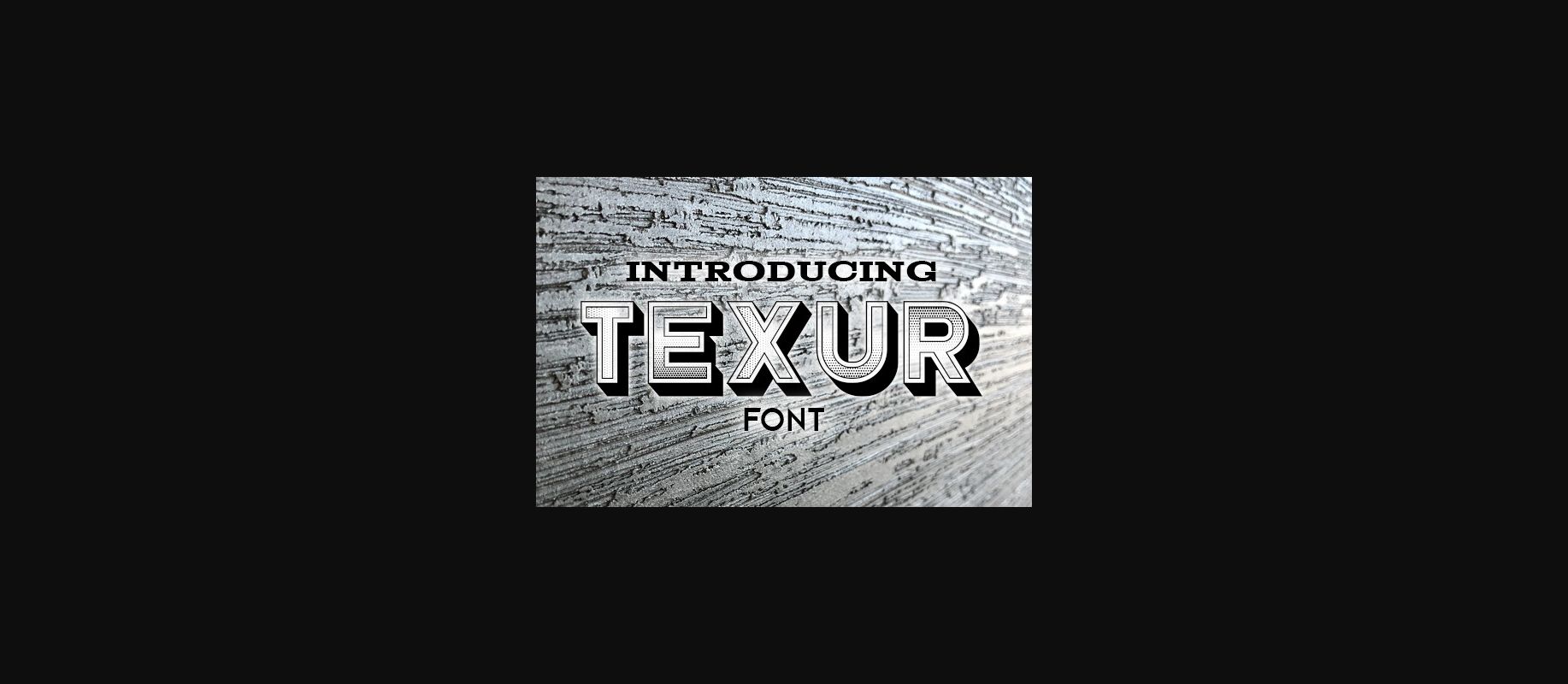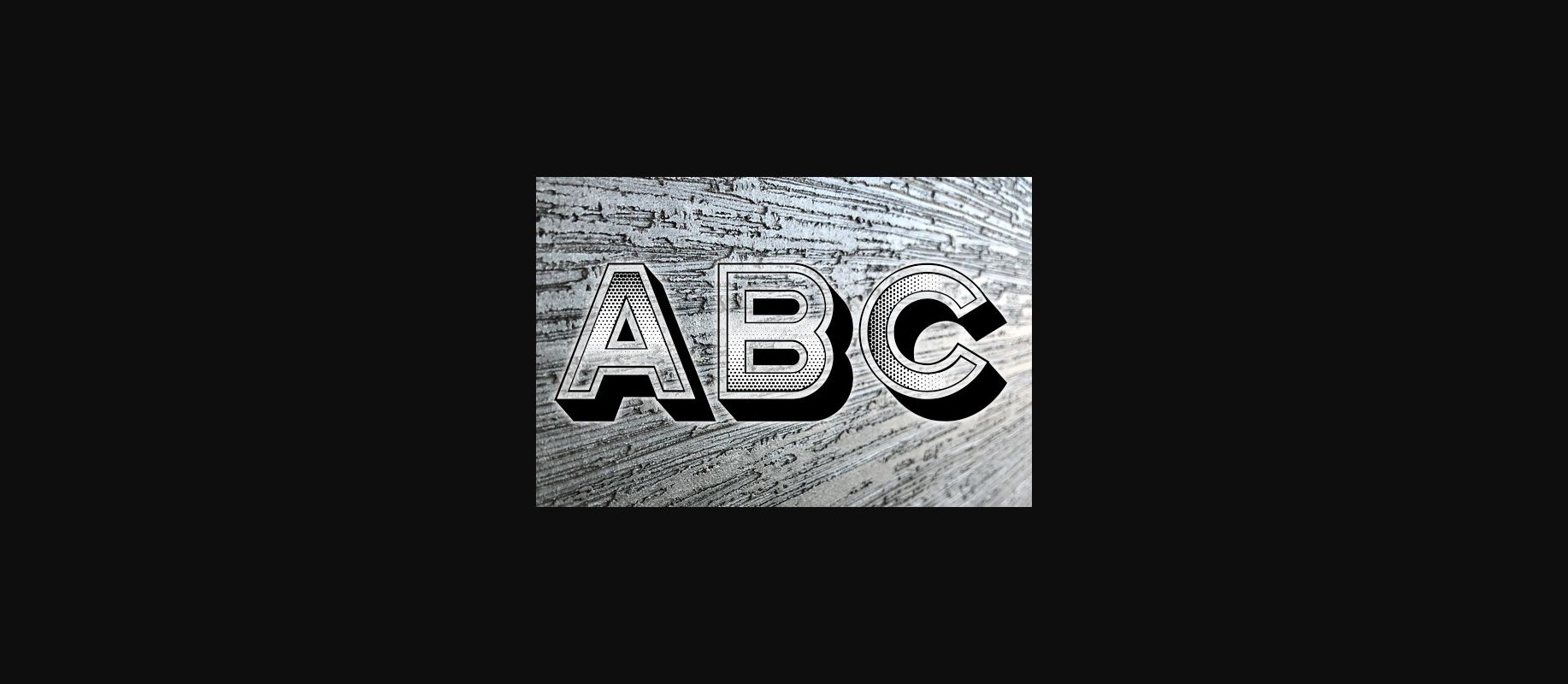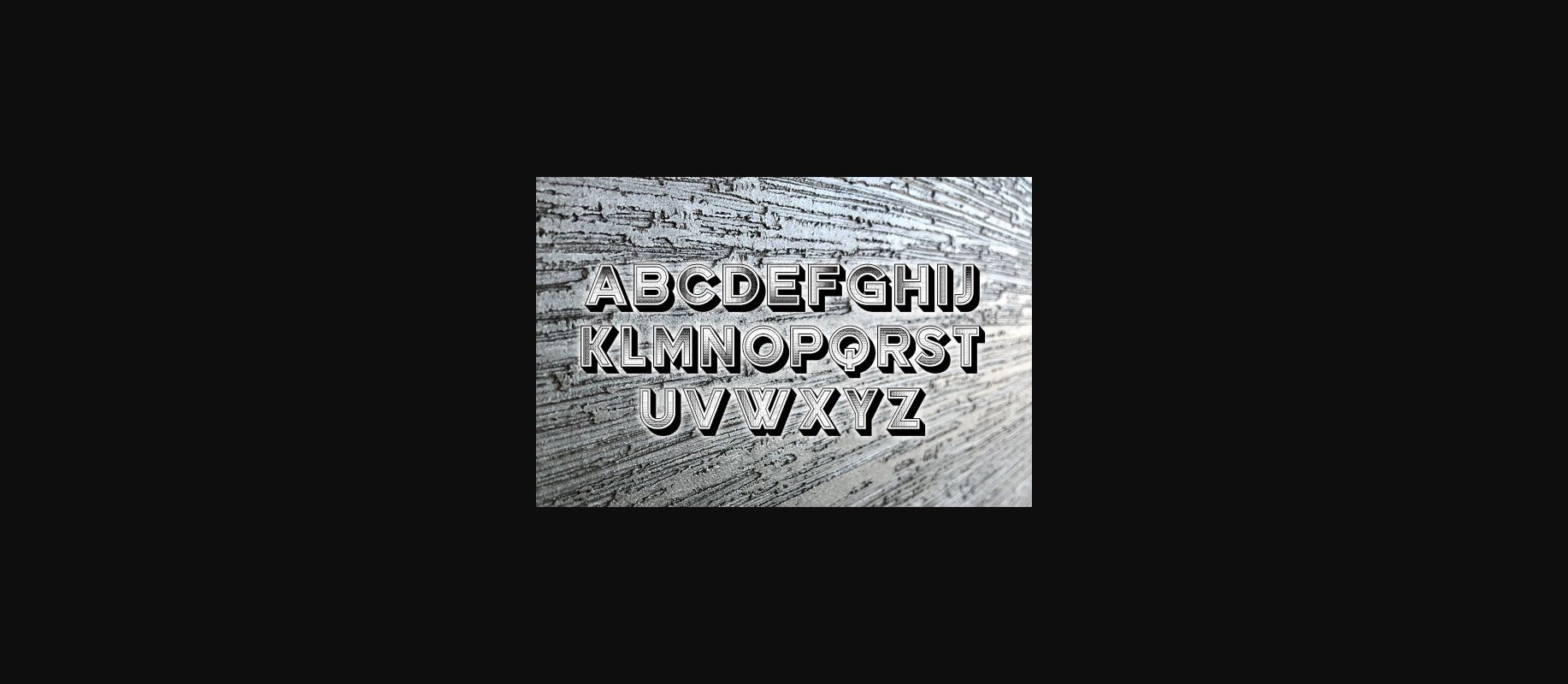
HomeDecorative FontsTexur Font Decorative Fonts Texur Font FacebookXPinterestWhatsApp 1 of 5 ... Texur Font Poster 2... Texur Font Poster 3... Texur Font Poster 4... Texur Font Poster 5... About Texur Font Texur is a dramatic decorative font. It is perfectly suitable for any design or crafty idea! Add it confidently to your projects and you will love the results! DOWNLOAD NOW People also explored Farmhouse Font Barter Font Lost Soul Font Malinsha Font Voluptuous Font Flat Font Moonlight Font Angelina Font Martline Font 281 0 TagsTexurTexur Font Previous articleAutism FontNext articleDistressed Font LEAVE A REPLY Cancel reply Comment: Please enter your comment! Name:* Please enter your name here Email:* You have entered an incorrect email address! Please enter your email address here Website: Save my name, email, and website in this browser for the next time I comment. Personal Use Free Sweety Blue Personal Use Free Read more about this font Alnair Star Personal Use Free Read more about this font Abberancy Personal Use Free Read more about this font Leadent Script Personal Use Free Read more about this font BLOG Fonts That Capture the Spirit of New York City New York City is more than just a place—it’s an experience, a rhythm, a visual language... The 10 Best Handwriting Fonts to Add Personality to Your Designs Top 7 Google Fonts Alternatives for Faster and Privacy-Friendly Web Design (2025) How to Install and Use Fonts on Windows, macOS, and Web Projects